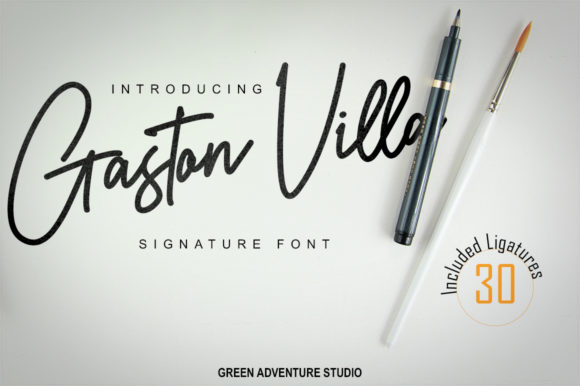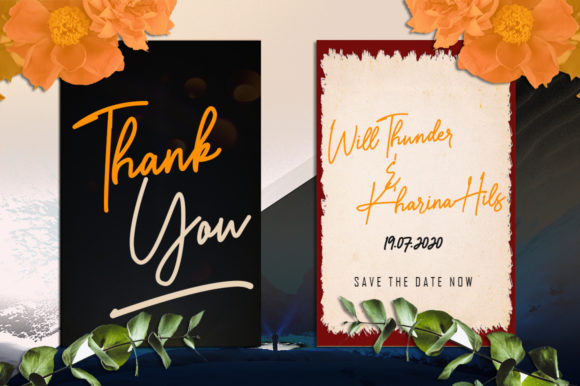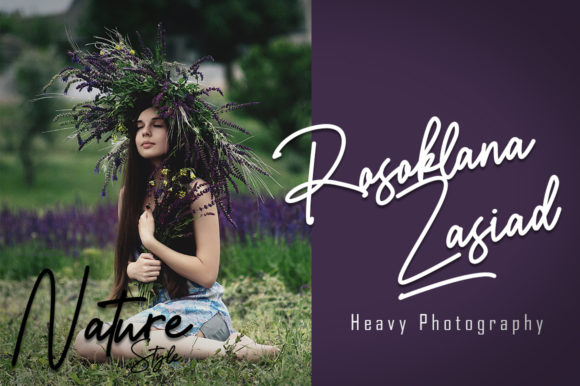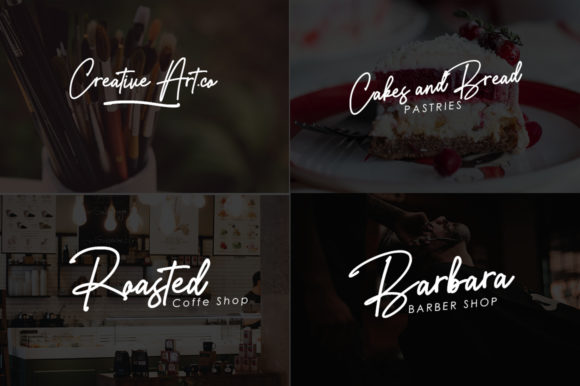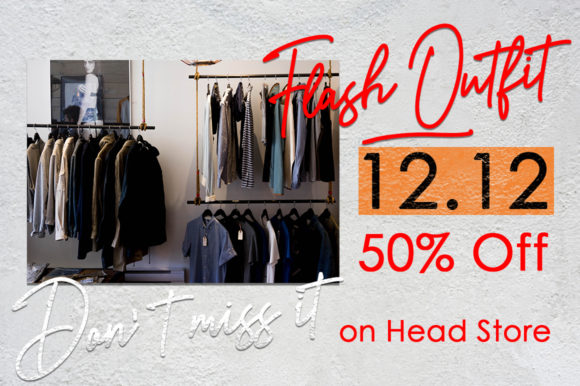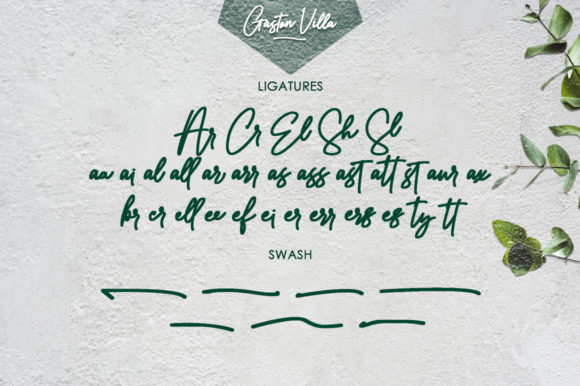
HomeScript FontsGaston Villa Font Script Fonts Gaston Villa Font FacebookXPinterestWhatsApp Gaston Villa Font Poster 2 Gaston Villa Font Poster 3 Gaston Villa Font Poster 4 Gaston Villa Font Poster 5 Gaston Villa Font Poster 6 Gaston Villa Font Poster 7 Gaston Villa Font Poster 8 Gaston Villa Font Poster 9 About Gaston Villa Font Gaston Villa is a luxurious and sophisticated script font. It is suitable for a wide variety of designs! DOWNLOAD ON CREATIVE FABRICAThis font is sold and delivered by Creative Fabrica. Font Canyon may earn a commission if you buy through this link. People also explored Secret Happines Font Smart Stuff Anasic Font Brilliant Font Charmington Font Parfait Font Fatty Font Dalgona Font Chunky Bear Font 295 0 TagsGaston Villa Font Previous articleCathea FontNext articleJustine Font LEAVE A REPLY Cancel reply Comment: Please enter your comment! Name:* Please enter your name here Email:* You have entered an incorrect email address! Please enter your email address here Website: Save my name, email, and website in this browser for the next time I comment. Personal Use Free Girl Personal Use Free Read more about this font Coolvetica Font Personal Use Free Read more about this font Loving You Personal Use Free Read more about this font Aseline Personal Use Free Read more about this font BLOG Fonts That Capture the Spirit of New York City New York City is more than just a place—it’s an experience, a rhythm, a visual language... To increase your work productivity, choose the most readable fonts. How to Install and Use Fonts on Windows, macOS, and Web Projects Top 10 Handwritten Fonts That Elevate Your Designs